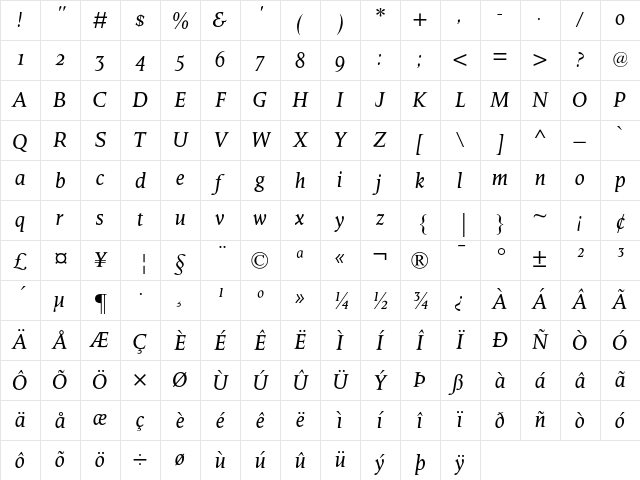
Octavian MT Italic Oldstyle Figures
Design Context for Octavian MT
Octavian MT carries the refined structure of traditional serif typography, with bracketed terminals and considered proportions that communicate credibility and craft. The slanted form adds forward momentum and visual energy.
Pro Tip: Use Octavian MT for editorial body copy and considered headline work. Pair with a neutral sans for UI elements or captions to create a classic hierarchy.